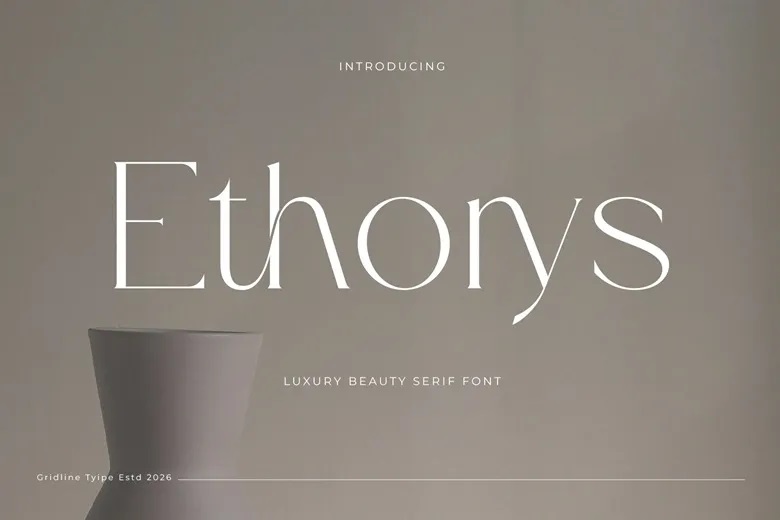
Ethorys Font
Give your brand a fresh look with Ethonys, an elegant serif font. It combines classic style with a modern editorial feel. The high-contrast strokes, sharp serifs, and smooth ligatures, such as the unique ‘t-h’ pair, make your text stand out. Ethonys works well for industries that prioritize aesthetics.
It’s a great pick for luxury fashion brands, cosmetic packaging, wedding invites, magazine covers, simple logos, and boutique signs. This font gives your brand a touch of luxury, elegance, and fine craftsmanship.
Ethorys Serif Font